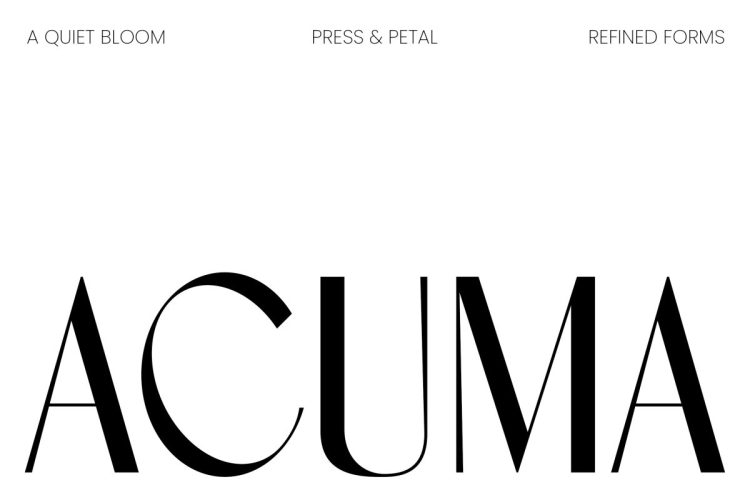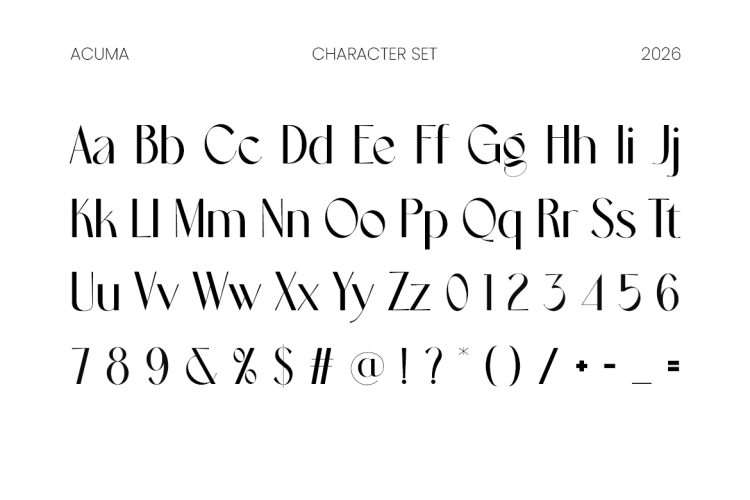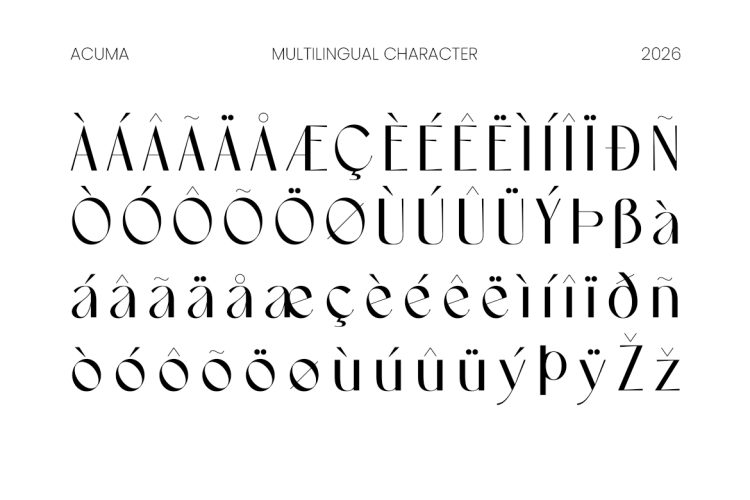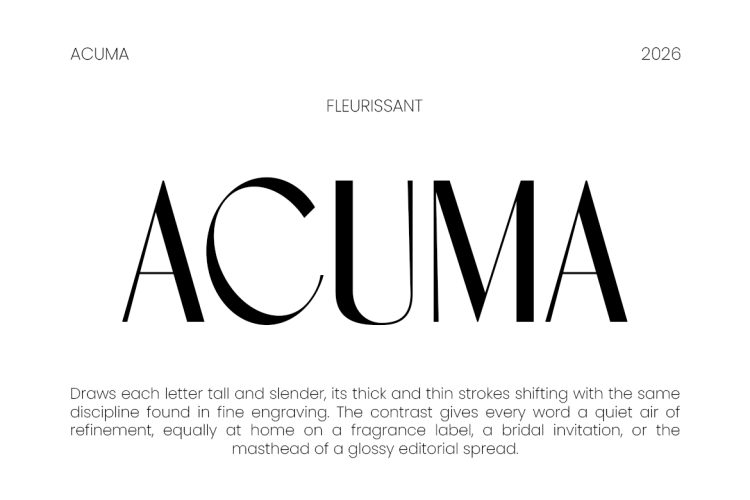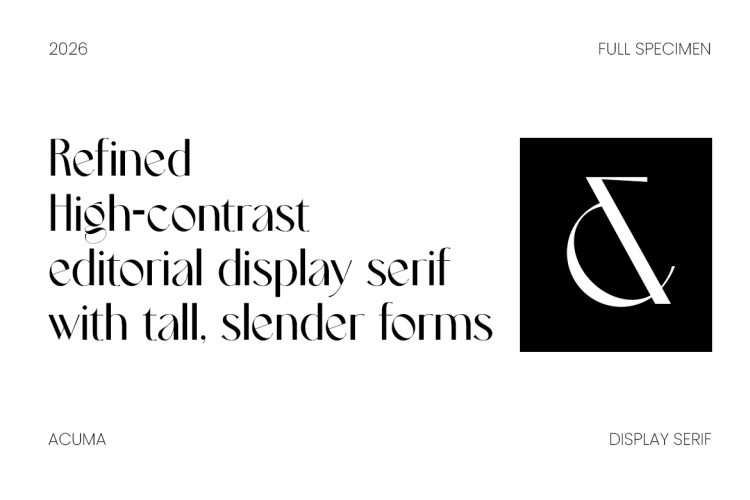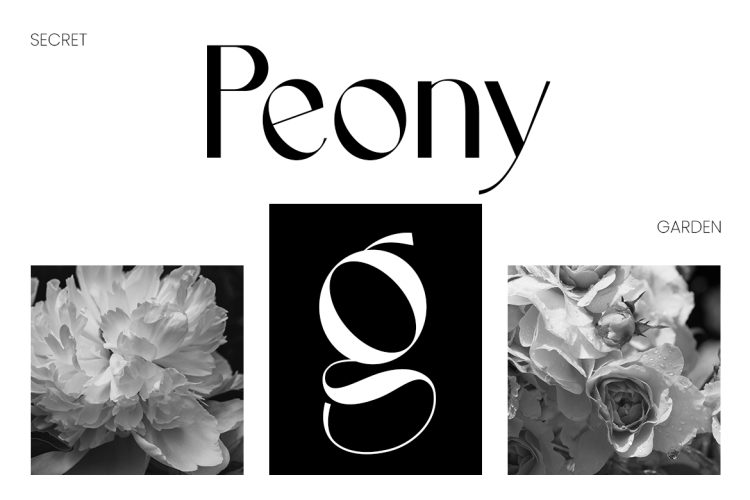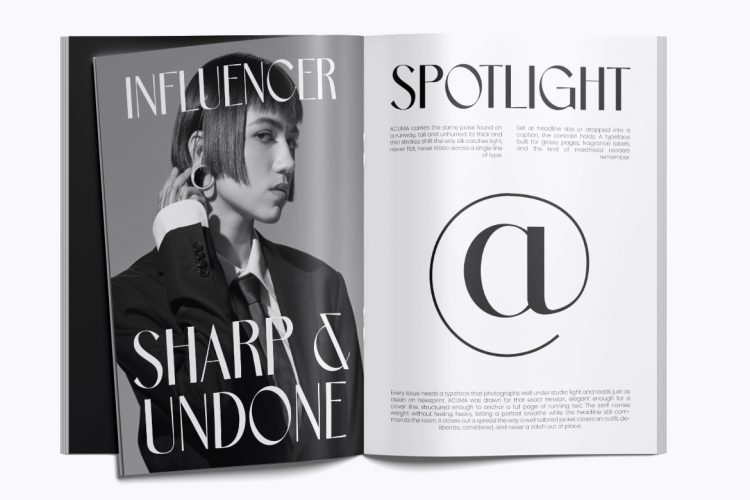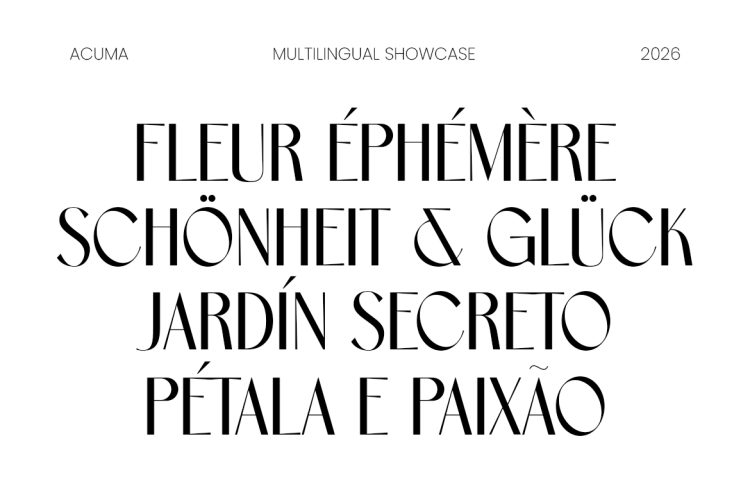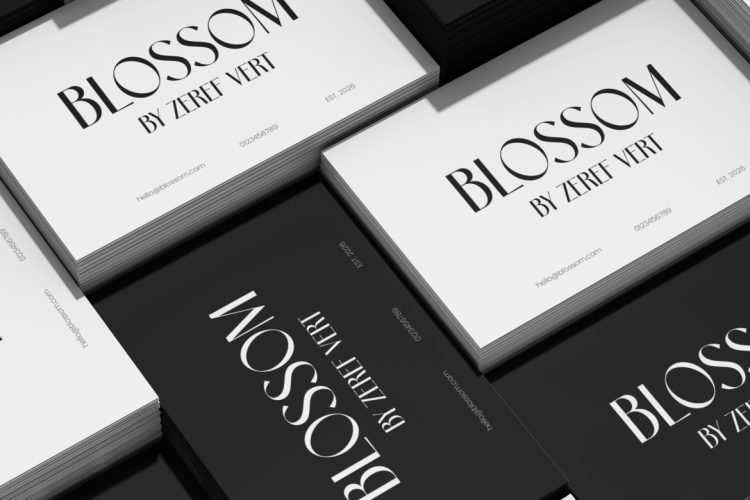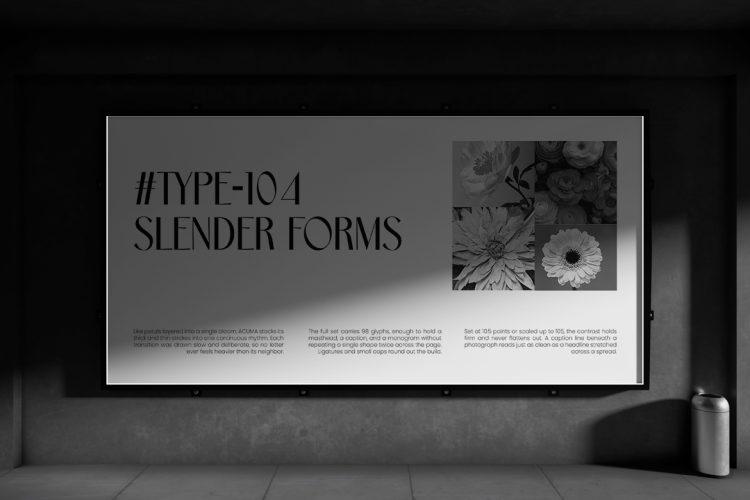
ACUMA โ Refined Editorial Serif Font
Instagram Font Acuma is a refined serif font with a sleek and elegant editorial look. At first glance, its high-contrast letterforms create a graceful and luxurious aesthetic. Moreover, the slim strokes and stylish curves give every word a sophisticated fashion feel. Meanwhile, its clean proportions keep the typography polished and easy to style. As a result, ACUMA adds a beautiful editorial touch to both digital and print designs. In addition, it includes Multilingual Support for 67 Languages, making it ready for worldwide creative projects.
Whether you are creating an Instagram post or building a beauty brand, ACUMA fits beautifully. Furthermore, it works for fashion branding, beauty campaigns, magazines, skincare packaging, logos, invitations, wedding stationery, product labels, posters, social media, and editorial layouts. Additionally, photographers, fashion designers, bloggers, influencers, boutiques, and creative studios can use its elegant personality. Because of its sophisticated structure, ACUMA is especially striking for headlines, quotes, and luxury-style branding.
Elevate Your Aesthetic
Finally, ACUMA turns simple words into stylish visual statements. So, if you want elegant typography with a modern editorial edge, Instagram Font ACUMA is ready to shine. Grab ACUMA today and give your designs that effortlessly chic finish!